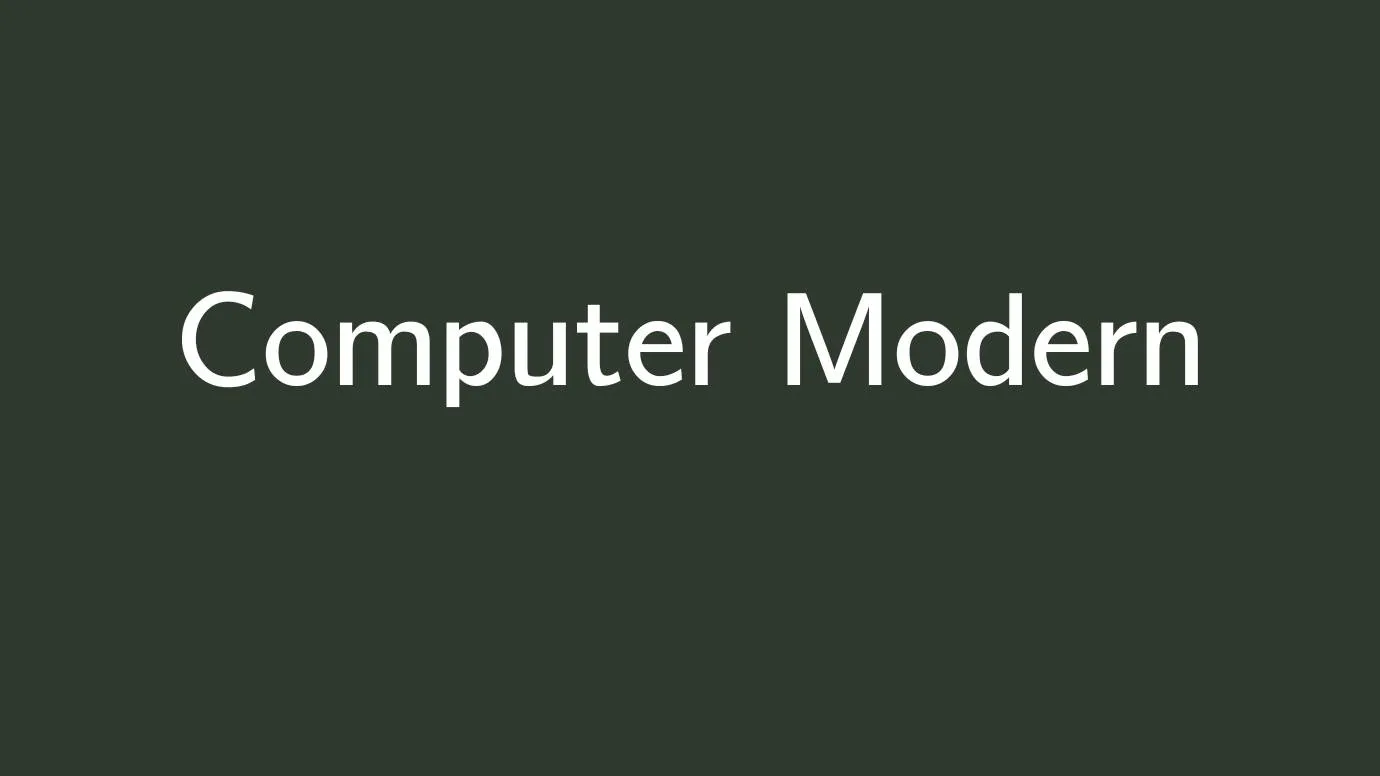
Computer Modern Font Family is a very classic typeface in terms of appearance. The main reason for its popularity is its a lot of advanced styles. This typeface was designed by an American Professor named Donald E. Knuth.
Computer Modern Font
TypeSans Serif
DesignerDonald E. Knuth